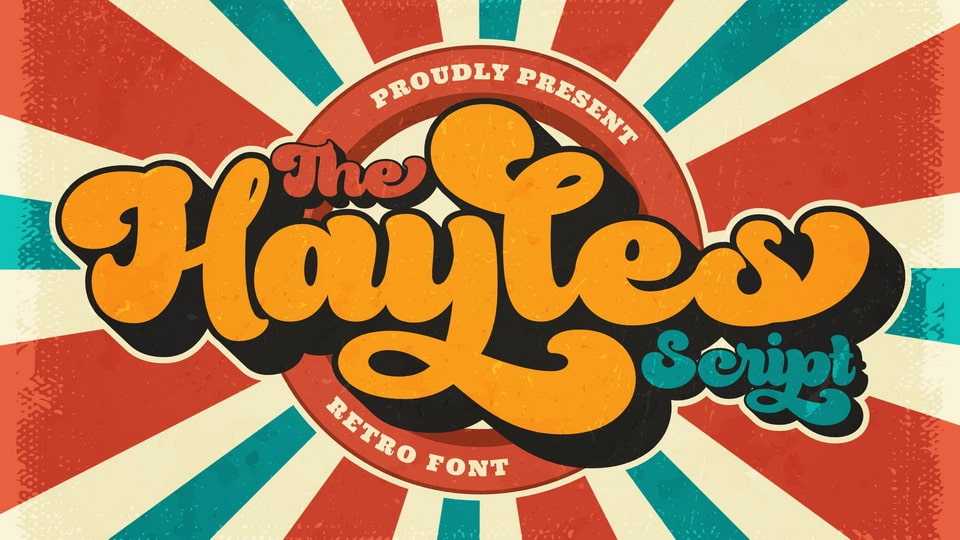
Download Hayles font, a fun, retro-style script display typeface that is ready to take your designs to the next level. Add it to your vintage-inspired posters, stickers, apparel and so on.